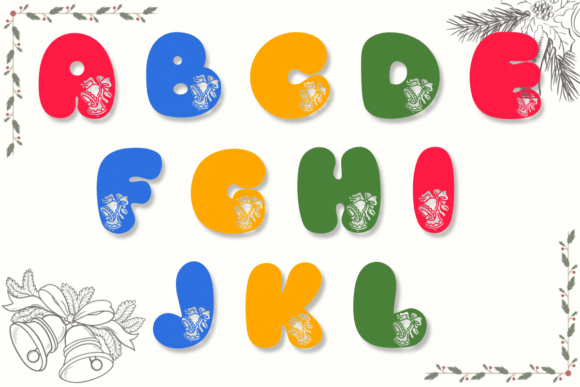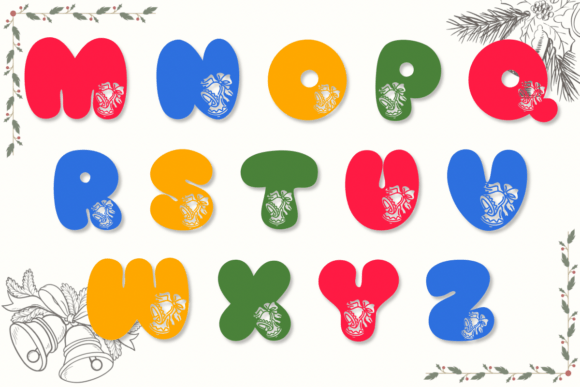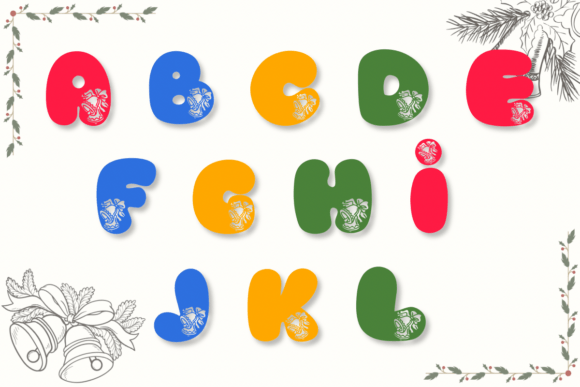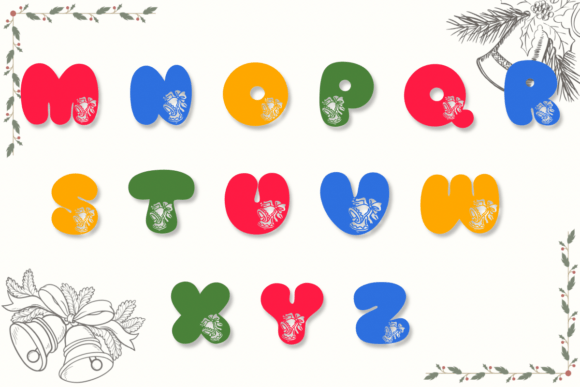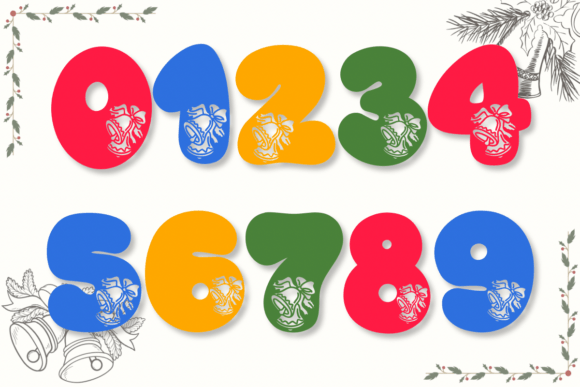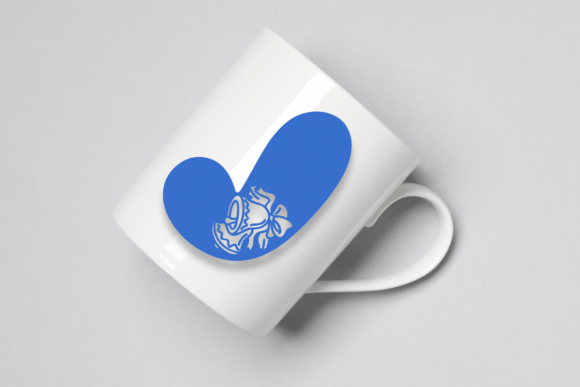
Christmas Bell Font: Add a Joyful Touch to Your Holiday Designs
Are you looking for a festive font to add a cheerful touch to your holiday cards, decorations, and designs? Look no further than the Christmas Bell Font! This delightful font is perfect for designers and crafters who want to create joyful and festive holiday projects.
What is Christmas Bell Font?
Christmas Bell Font is a cheerful, decorative font that features small Christmas bells along the lines of each letter. This unique design element gives the font a fun and festive feel that’s perfect for the holiday season. The font is designed to evoke the spirit of Christmas and add a playful touch to your designs.
Key Features of Christmas Bell Font
- Festive Design: Each letter features small Christmas bells along its lines, giving the font a fun and festive look.
- Cheerful Feel: The font has a cheerful and playful feel that’s perfect for holiday designs.
- Decorative: The font is highly decorative, making it perfect for use in holiday cards, decorations, and other designs.
Uses for Christmas Bell Font
Christmas Bell Font is perfect for a variety of holiday design projects, including:
- Holiday Cards: Add a festive touch to your holiday cards with this cheerful font.
- Decorations: Use the font to create festive decorations, such as garlands, banners, and signs.
- Social Media Graphics: Add a holiday touch to your social media graphics, such as Facebook posts and Twitter headers.
- Web Graphics: Use the font to create festive web graphics, such as holiday-themed headers and footers.
- Crafting Projects: Use the font to add a festive touch to your crafting projects, such as scrapbooking and paper crafting.
Tips for Using Christmas Bell Font
Here are some tips for using Christmas Bell Font in your designs:
- Use it Sparingly: Because the font is highly decorative, it’s best to use it sparingly to avoid overwhelming your design.
- Pair it with a Simple Font: Pair Christmas Bell Font with a simple font to create contrast and make your design more readable.
- Have Fun: Most importantly, have fun and be creative with your design!
Christmas Bell Font is a fun and festive font that’s perfect for adding a joyful touch to your holiday designs. With its unique design element and cheerful feel, it’s sure to become a favorite in your design arsenal. Whether you’re a designer or crafter, this font is sure to bring some holiday cheer to your projects. So why not give it a try and see what festive designs you can create?